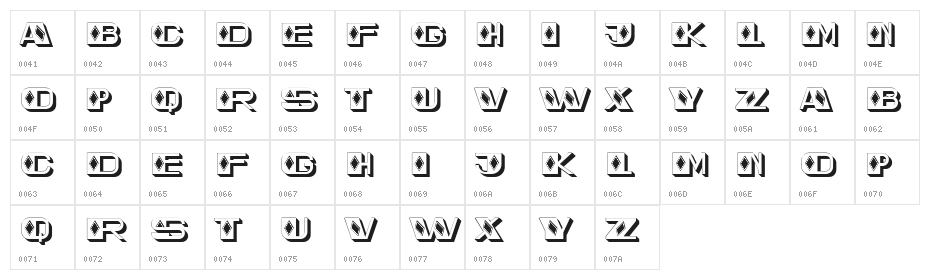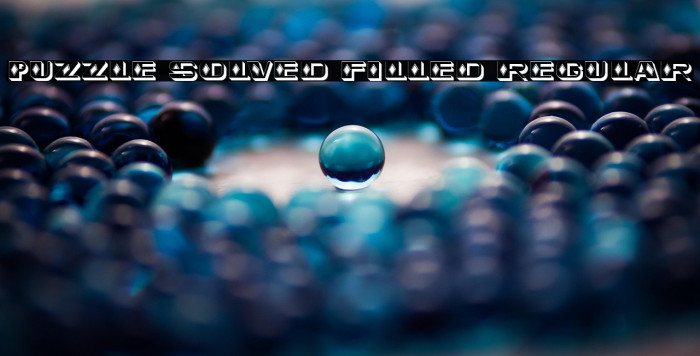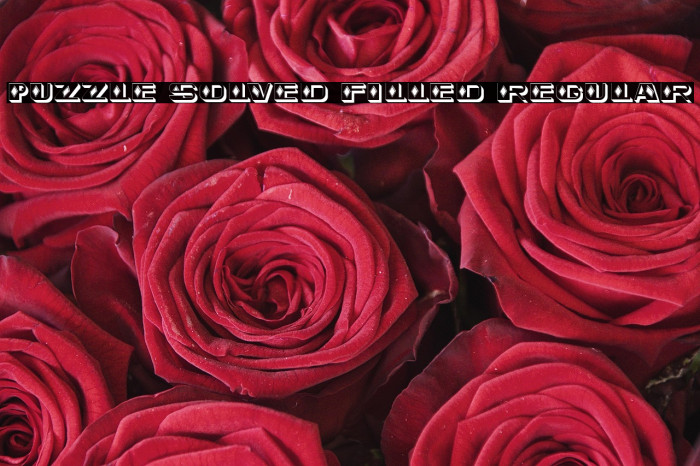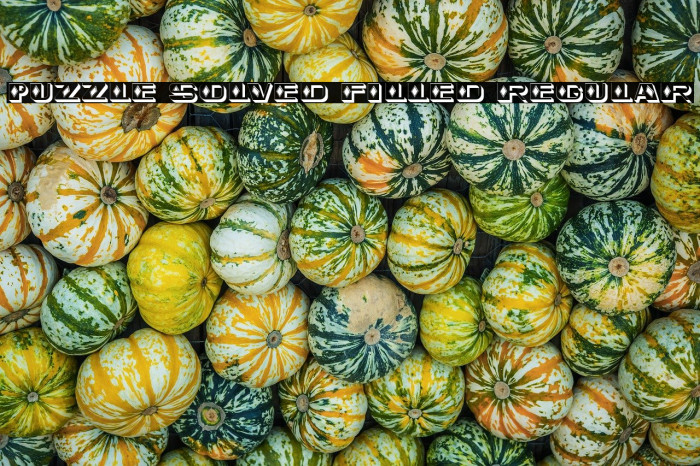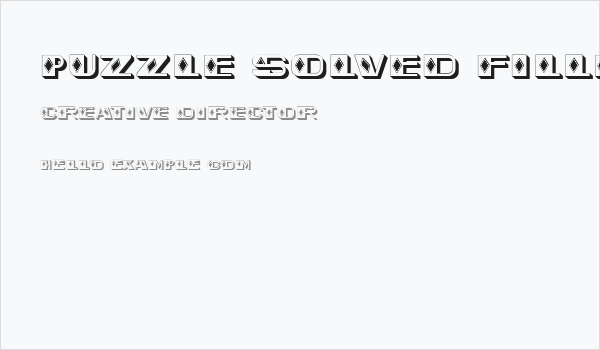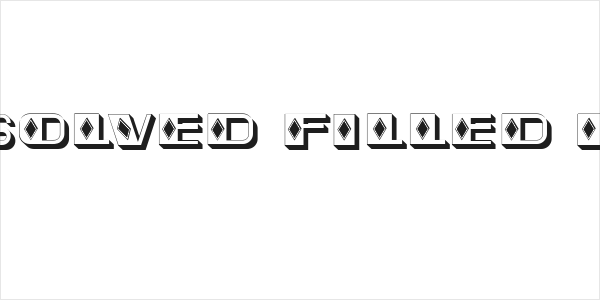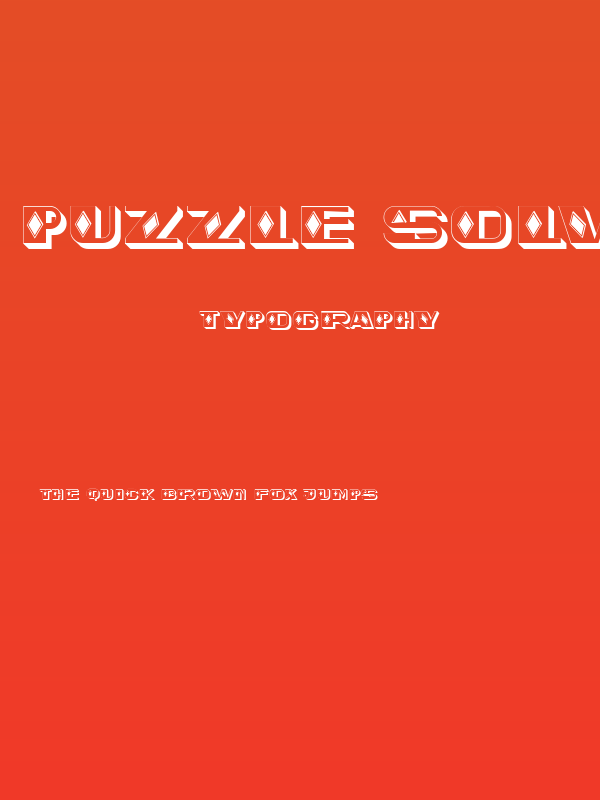
Puzzle Solved Filled Regular Font
Puzzle Solved Filled Regular Description
This font features a bold, geometric design with a three-dimensional effect. Each character is crafted with a solid, filled center and a distinct outline that gives it a puzzle-like appearance. The letters are uppercase and have a uniform width, creating a cohesive and structured look. The font's unique style is characterized by its angular edges and the use of negative space to form intricate patterns within each letter. This design choice adds a layer of complexity and visual interest, making it stand out in any application.